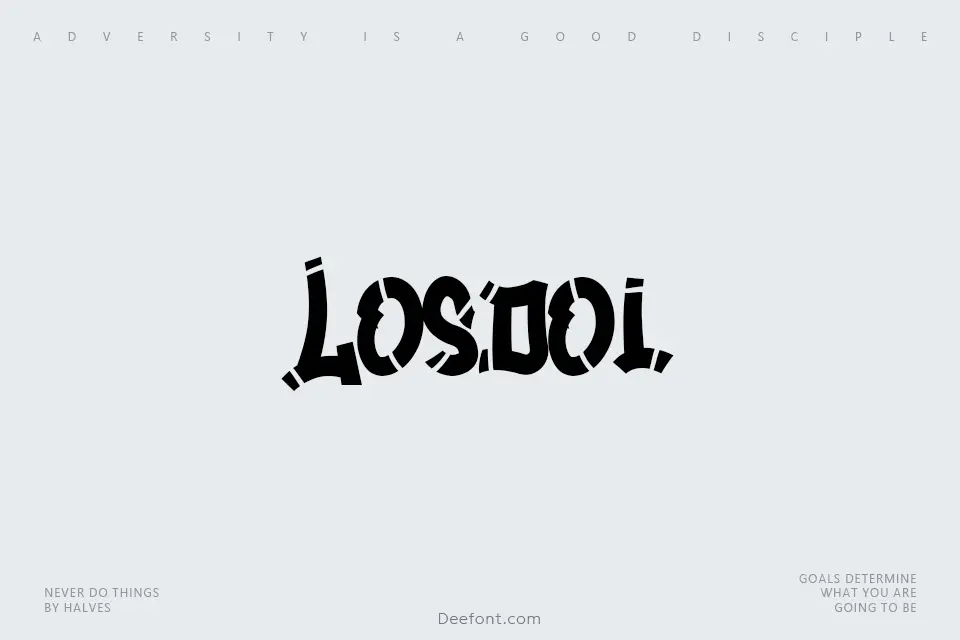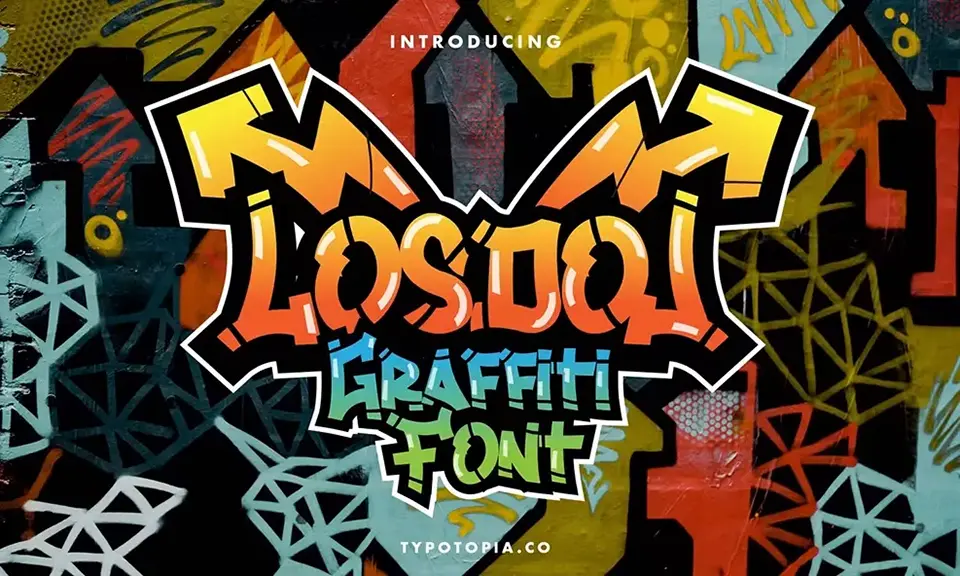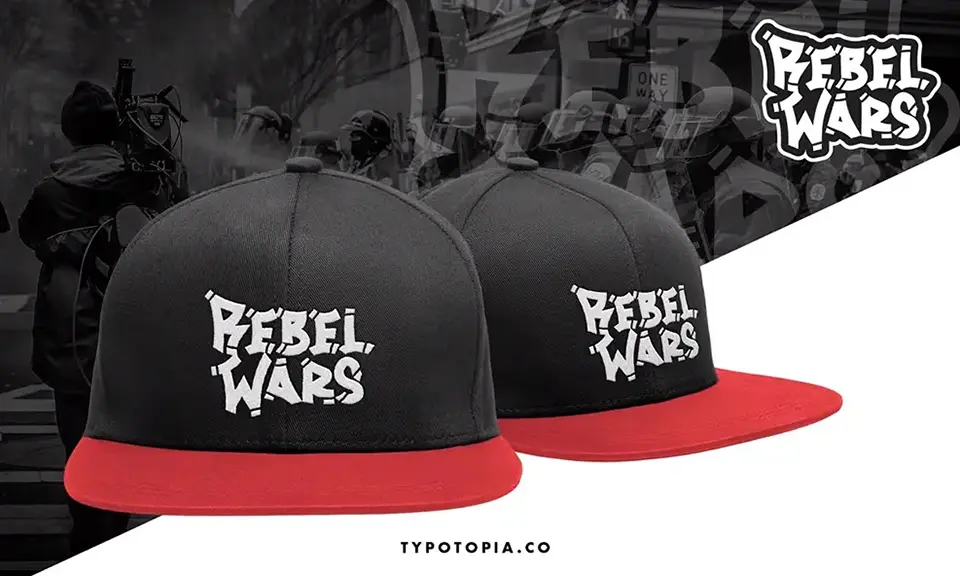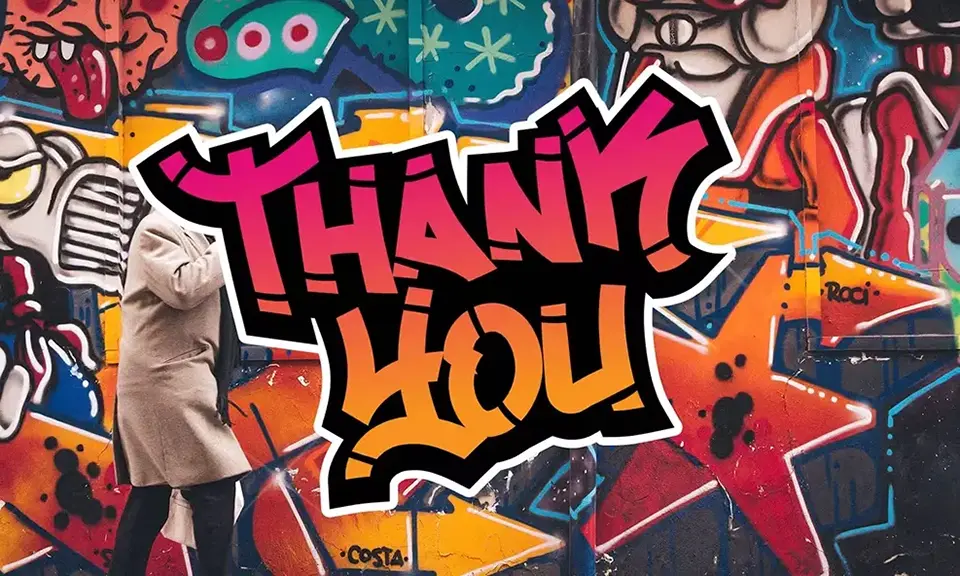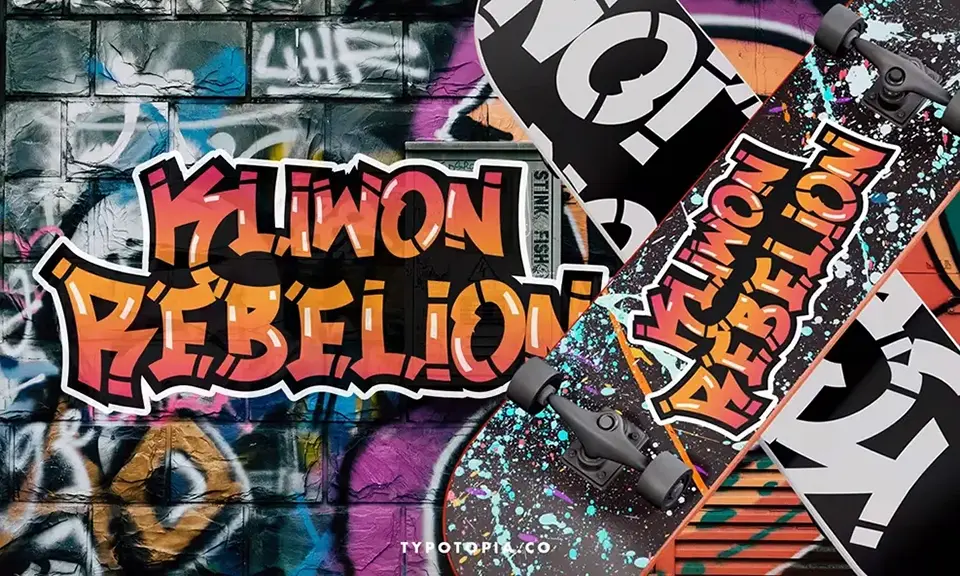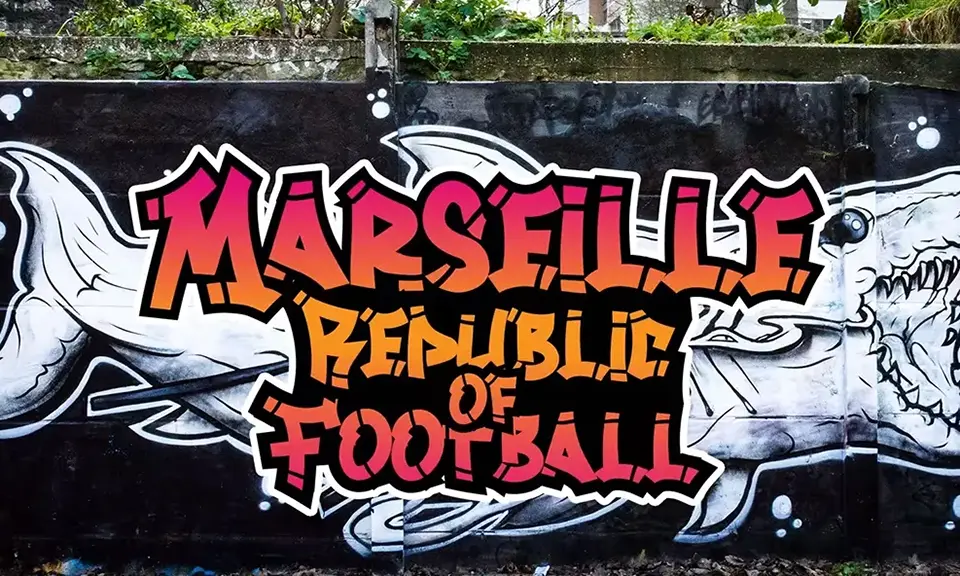
Losdol Font
Losdol is a striking display font with a distinctive graffiti style that combines modern design elements with bold, fragmented characters. This versatile typeface is expertly crafted for creating impactful visual content, making it ideal for logos, posters, invitations, packaging, apparel designs, and marketing materials. With its edgy urban aesthetic and raw energy, Losdol brings a rebellious spirit to any creative project, ensuring your designs stand out with its unique personality and commanding visual presence.